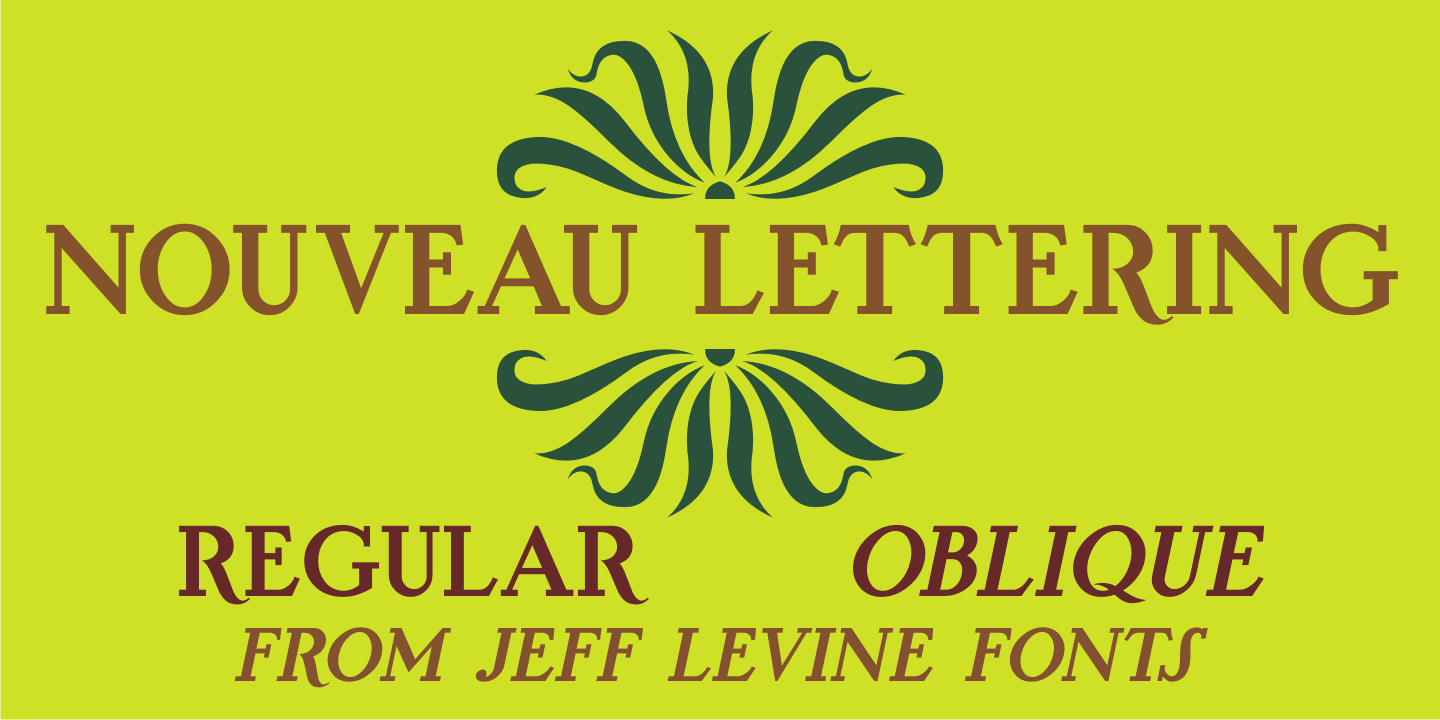
NOUVEAU LETTERING JNL
Designed by Jeff Levine, Nouveau Lettering JNL is a art nouveau and display slab font family. This typeface has two styles and was published by Jeff Levine Fonts.
A 1916 lettering book provided an example of a slab serif alphabet with Art Nouveau influence designed by Thomas Wood Stevens.
This alphabet served as the model for Nouveau Lettering JNL, which is available in both regular and oblique versions.